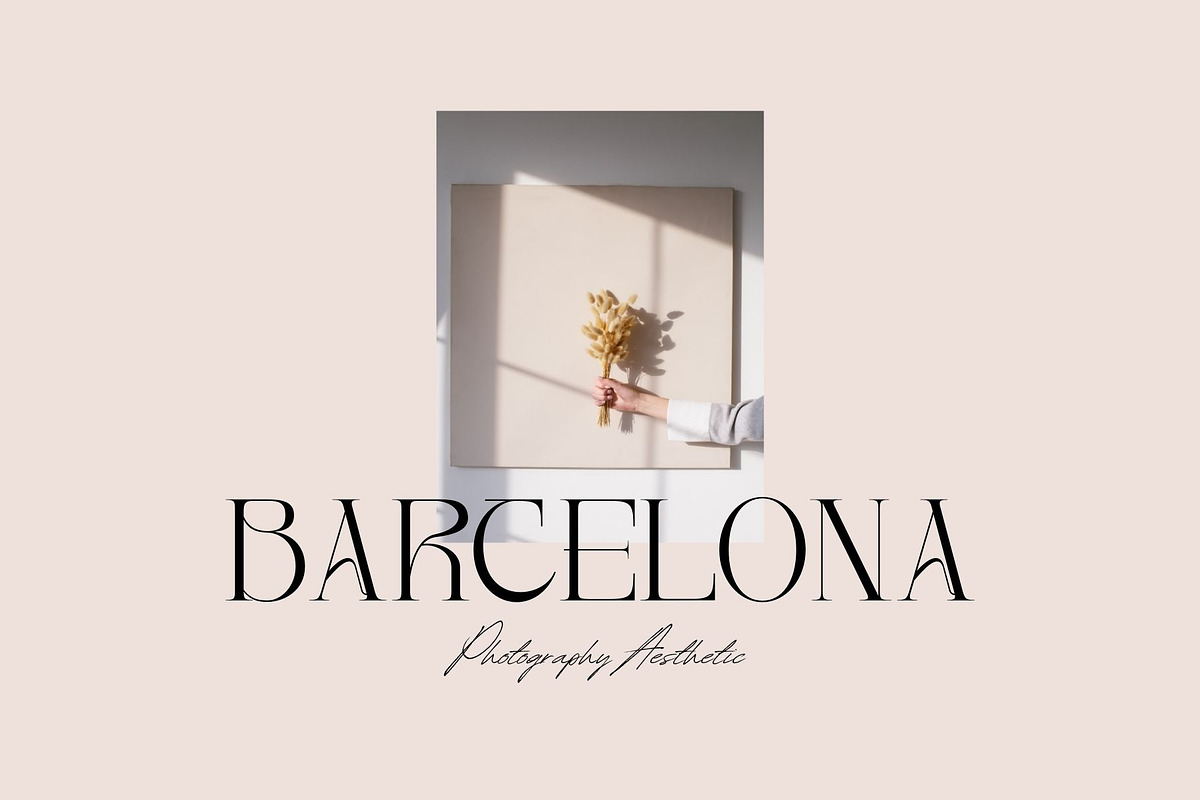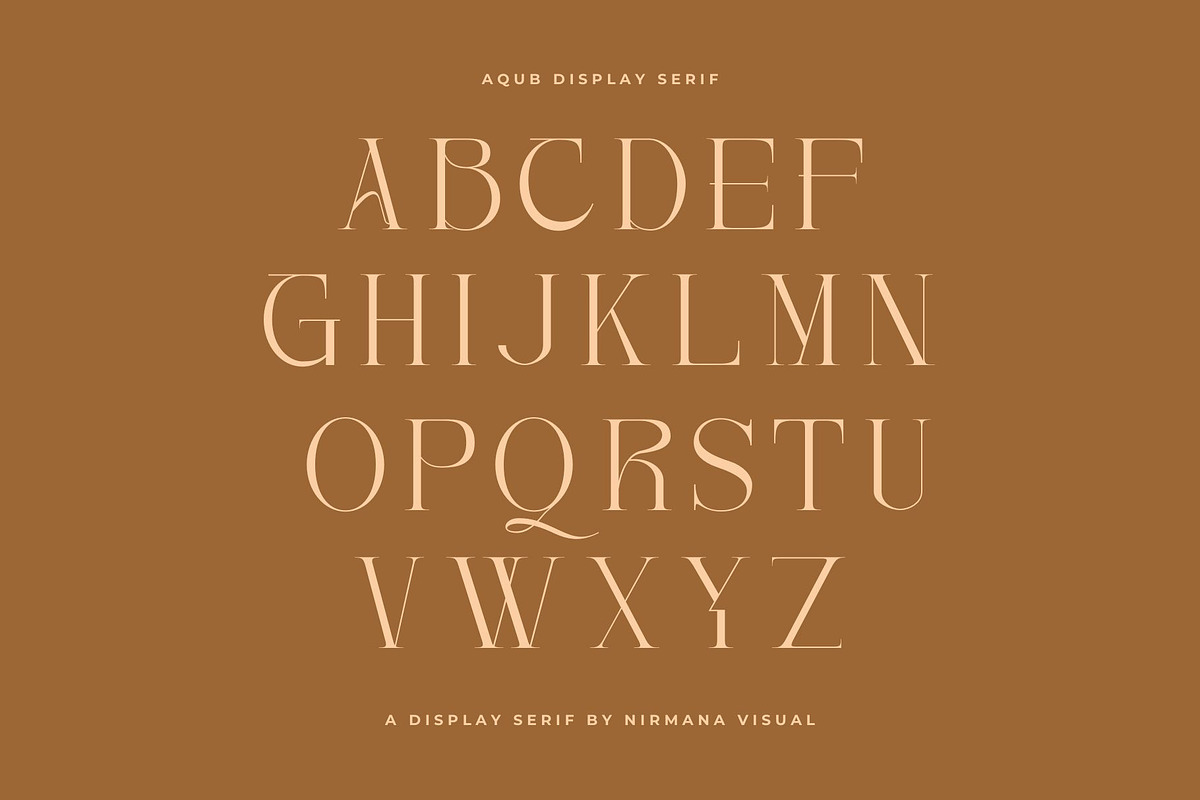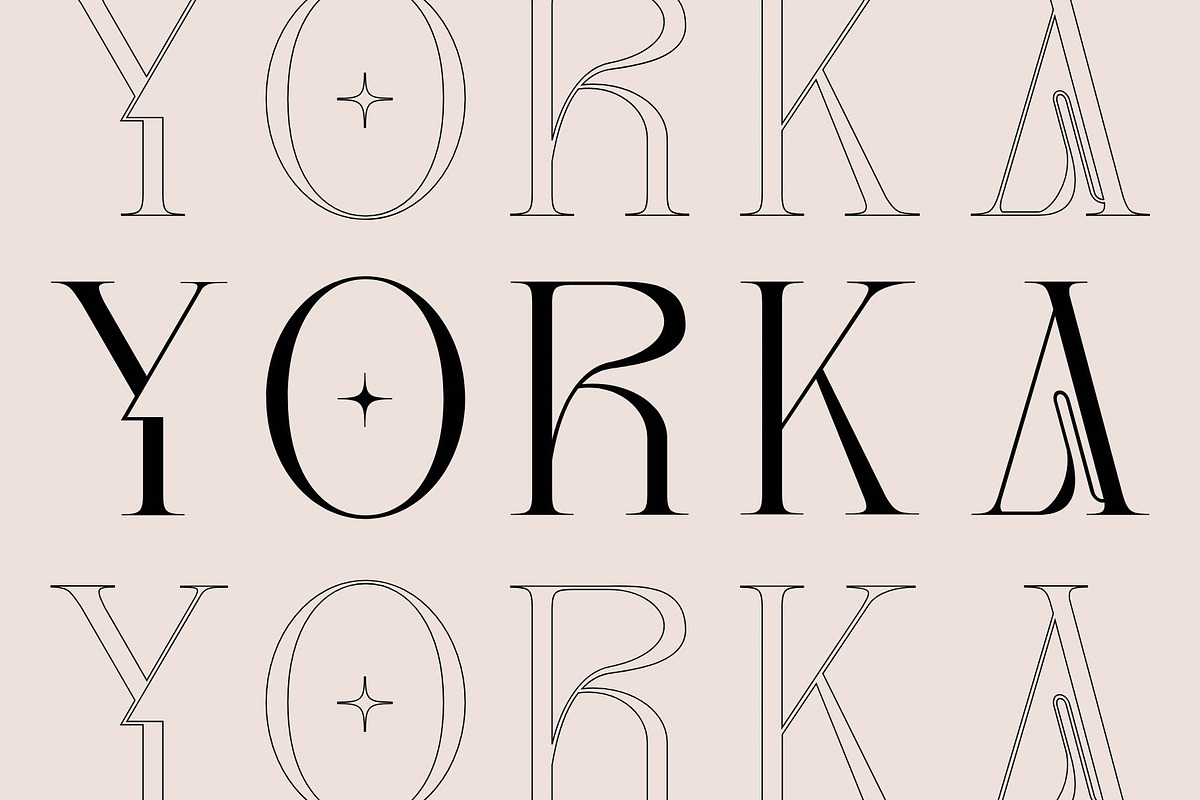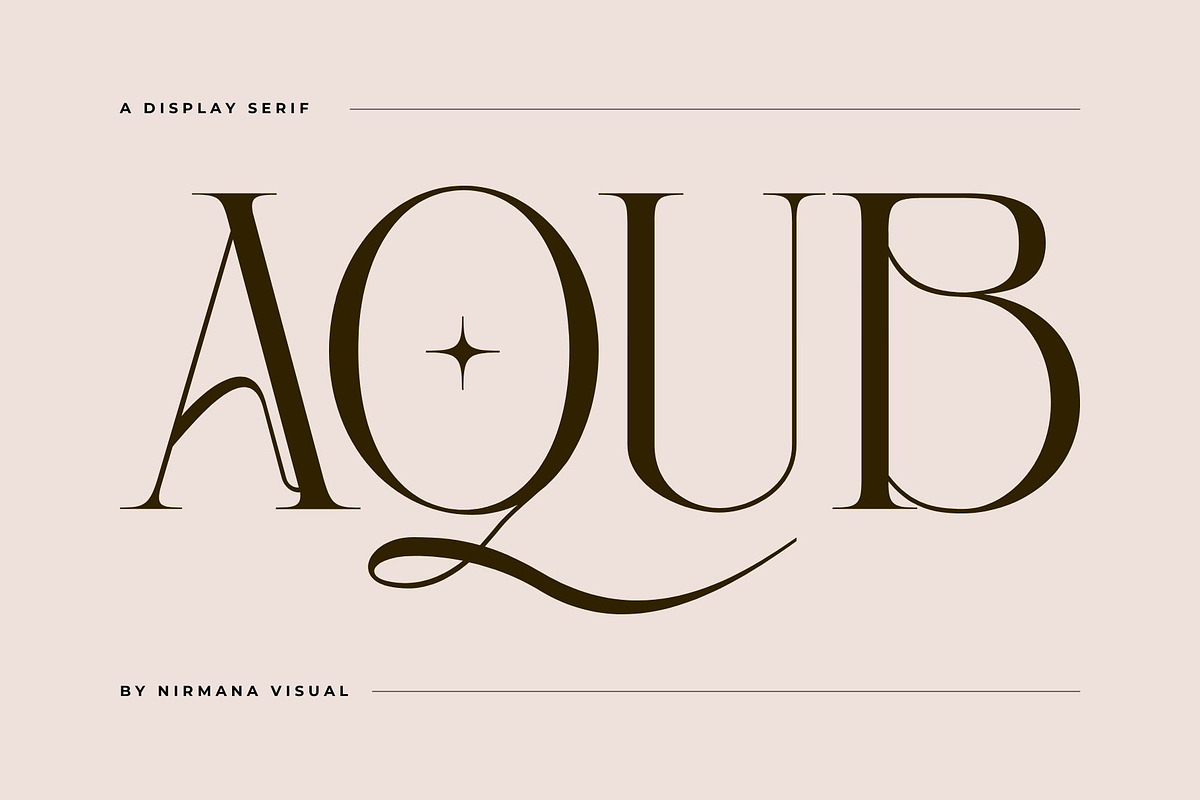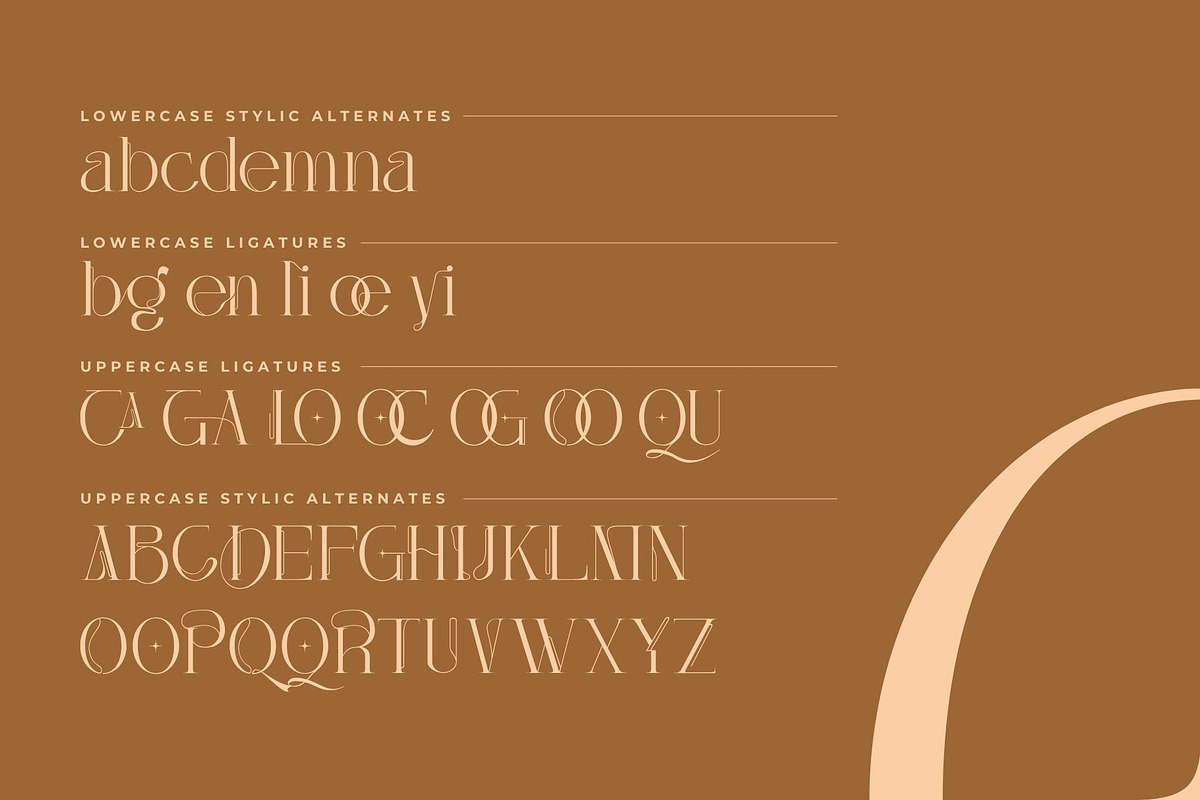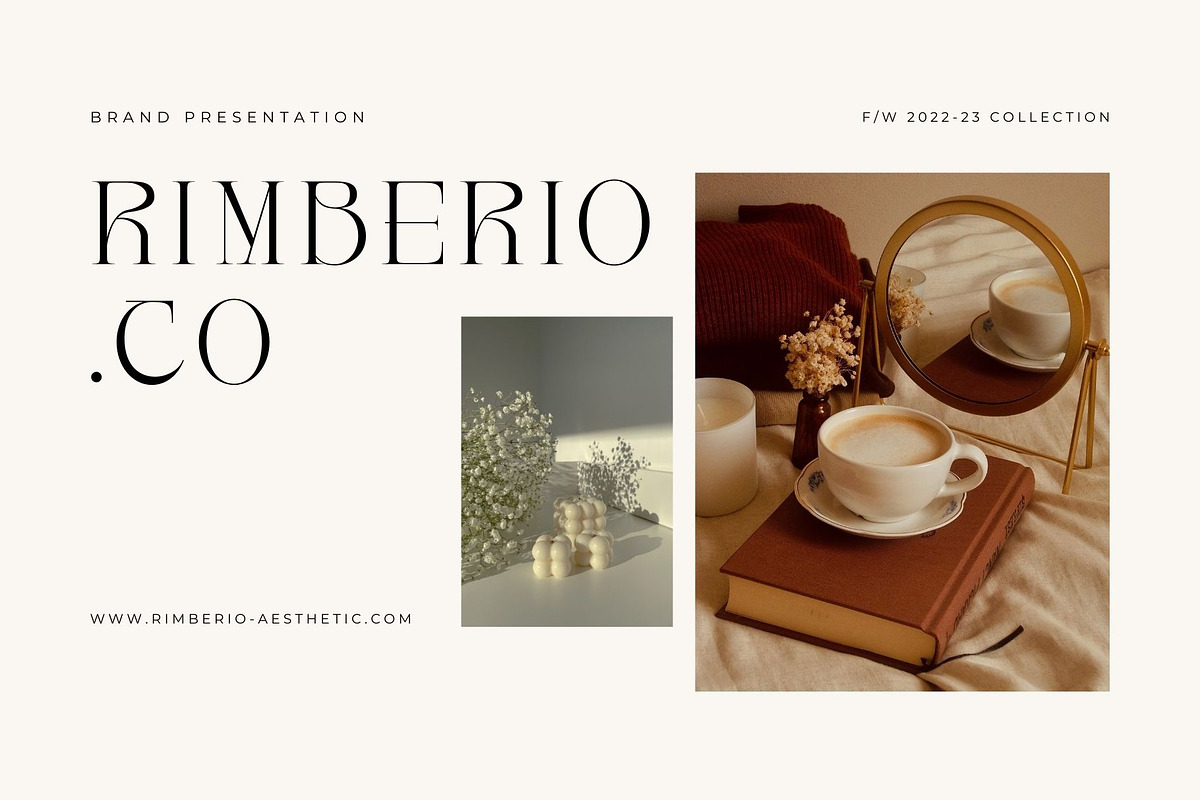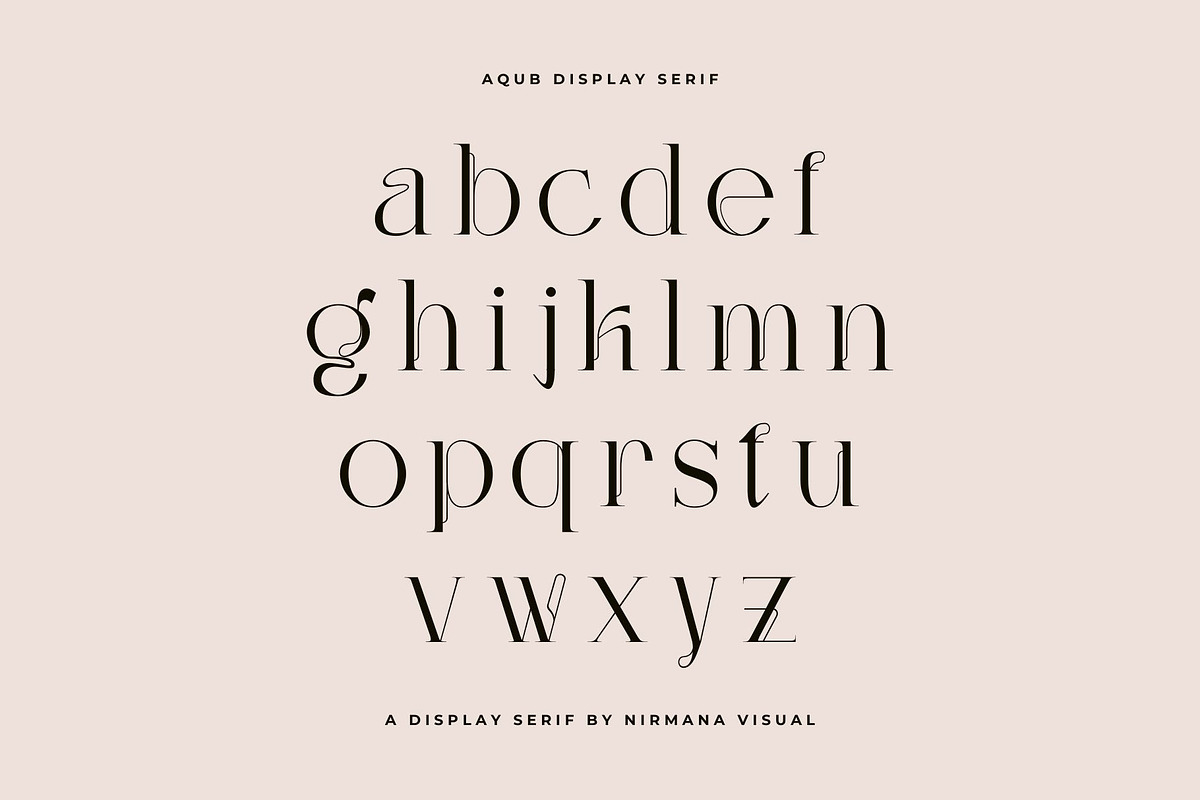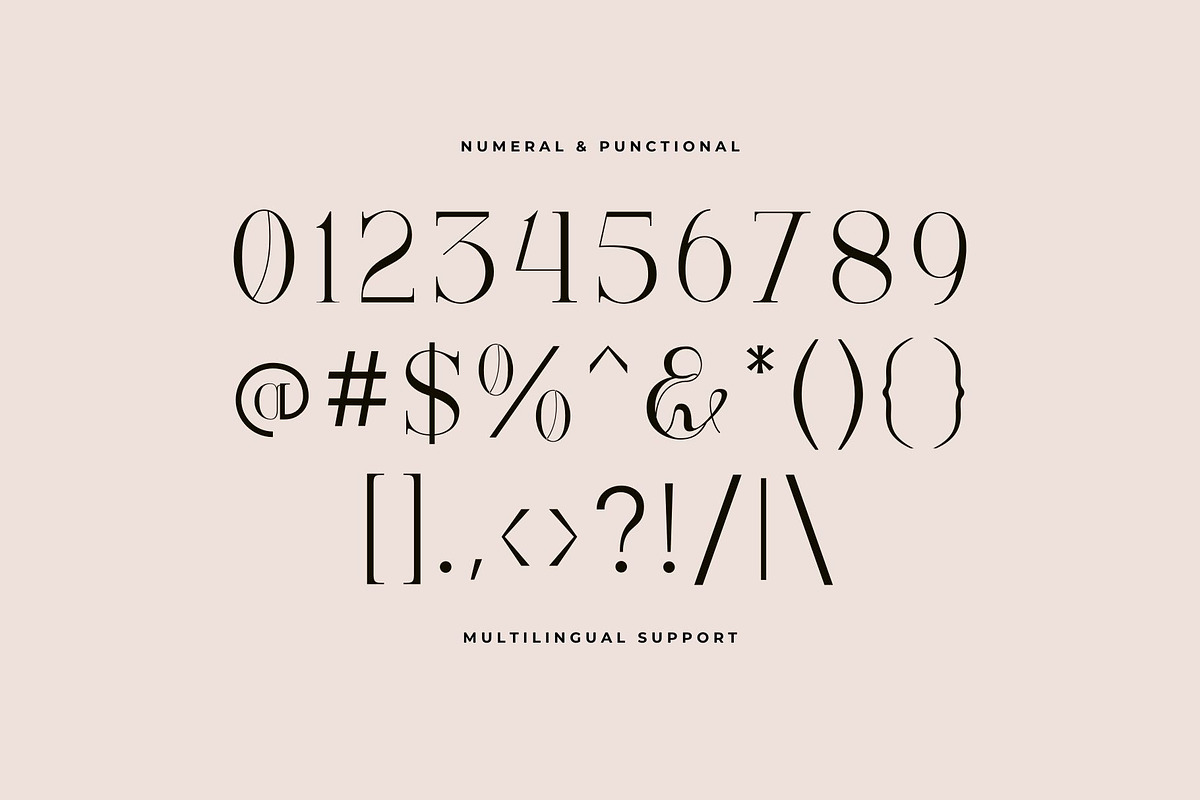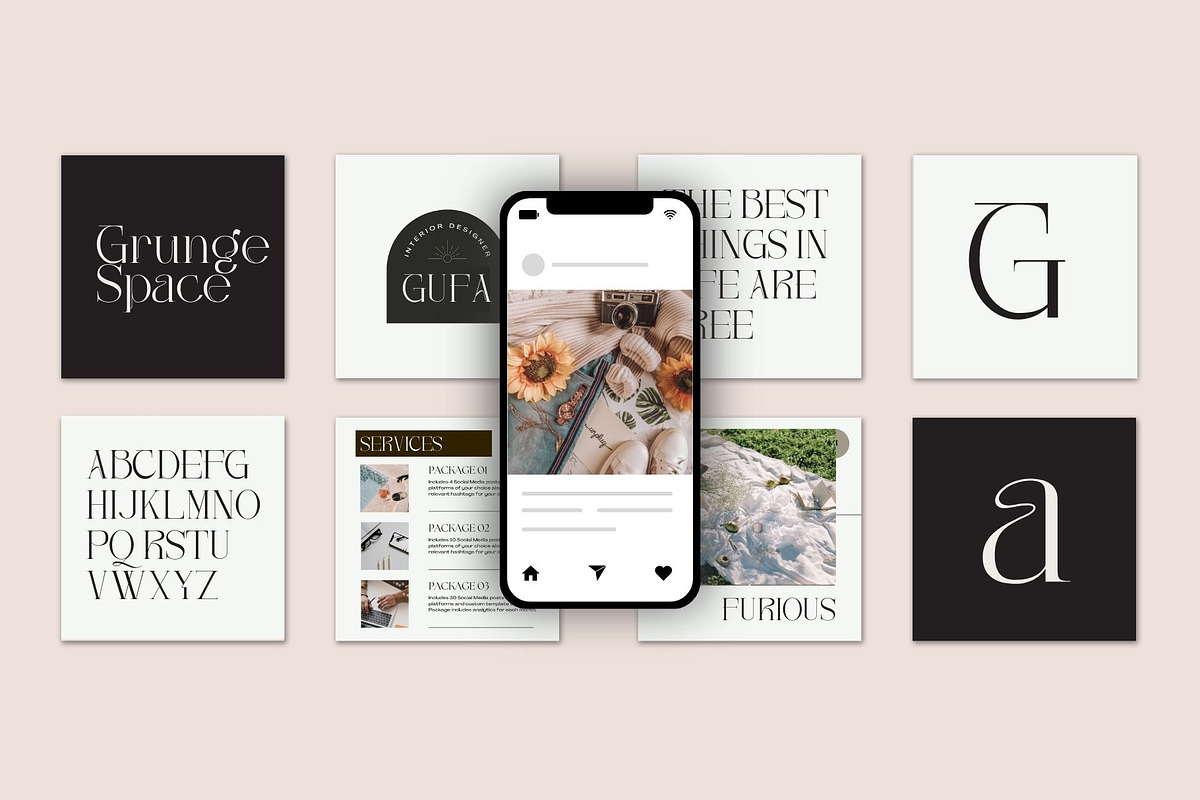
Aqub - Modern Serif Font
Aqub offers beautiful typographic harmony for a diversity of design projects, including logos & branding, social media posts, advertisements & product designs.